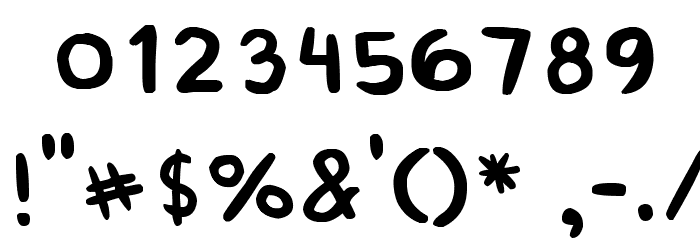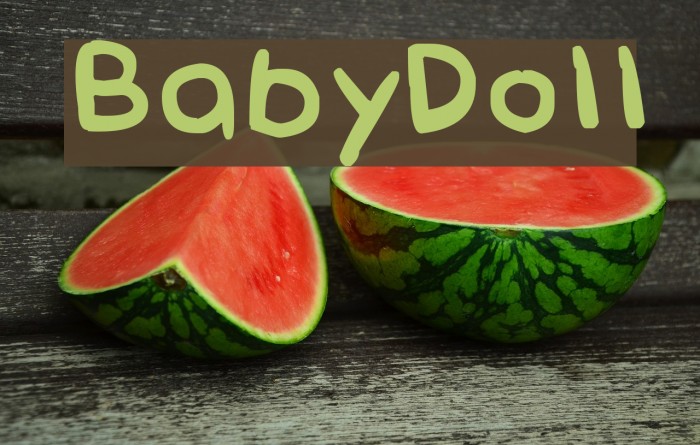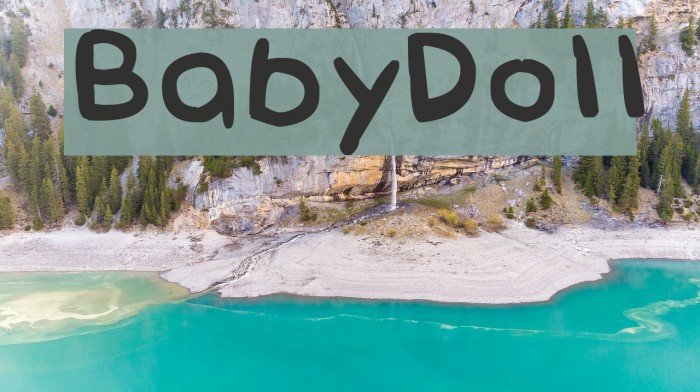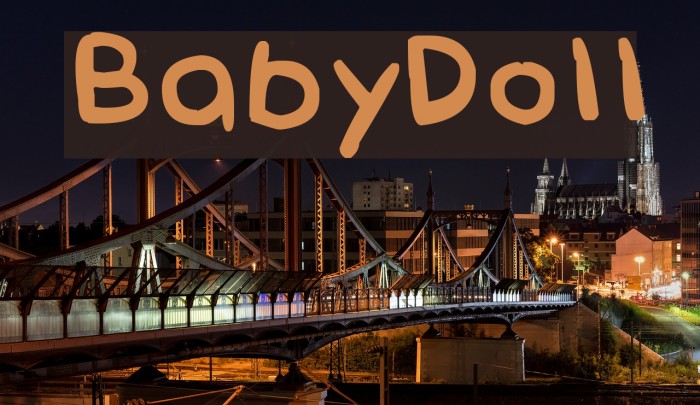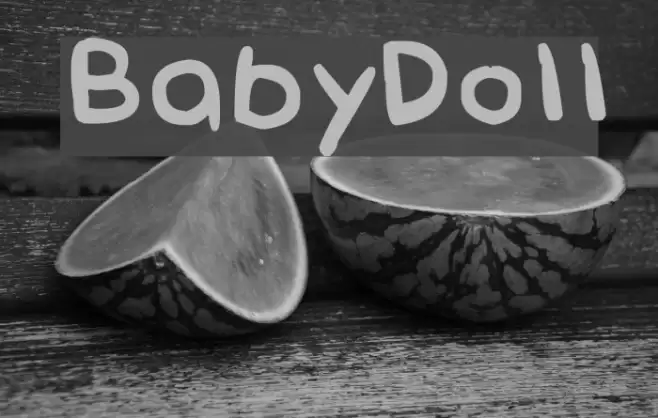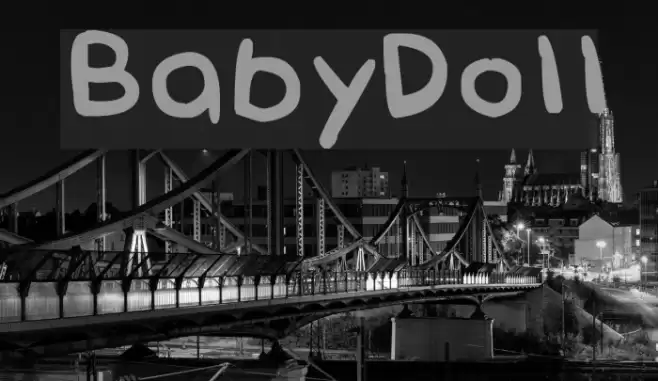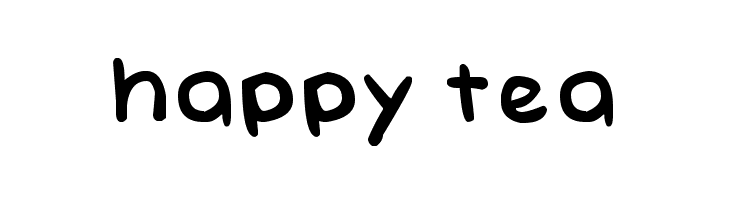
BabyDoll Font
This font exudes a playful and whimsical charm, characterized by its rounded and slightly irregular letterforms. The strokes are smooth and consistent, giving it a friendly and approachable appearance. The uppercase and lowercase letters maintain a uniform style, with a slight tilt that adds to its casual feel. The numerals and special characters are designed to match the overall aesthetic, ensuring a cohesive look across all text. This font is perfect for projects that require a touch of fun and creativity, making it ideal for children's books, playful branding, or informal invitations.
A playful, rounded font with a whimsical and friendly style.
- Font: BabyDoll
- Proposed Projects: Children's books, playful branding, informal invitations, creative posters.
- Category: Handwritten
- Overall Style: Playful
- Use Case: Headlines, Logos, Informal Text